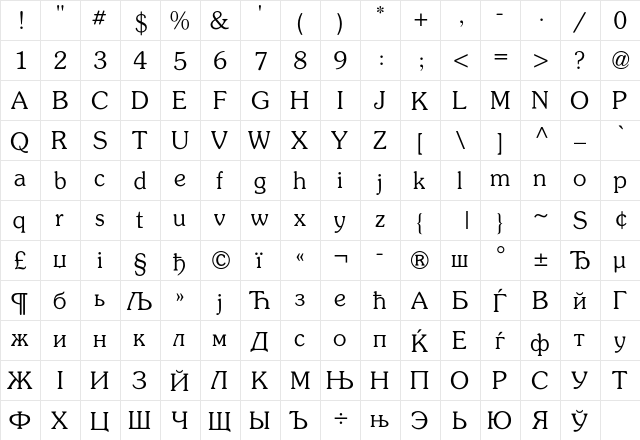
AGPresquire Regular
Design Context for AGPresquire Typeface
AGPresquire takes a measured approach to typography — its balanced proportions and neutral character make it a reliable workhorse for both digital and print work.
Pro Tip: Use AGPresquire in both headline and body roles to test its range before committing to a single application.